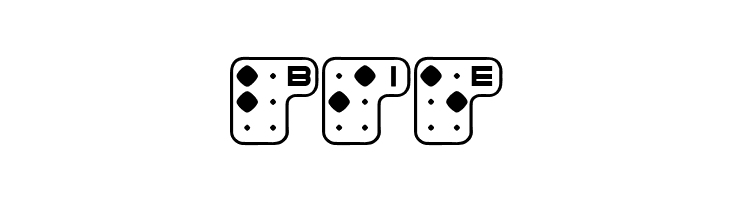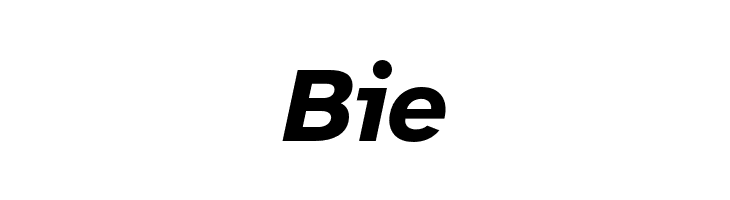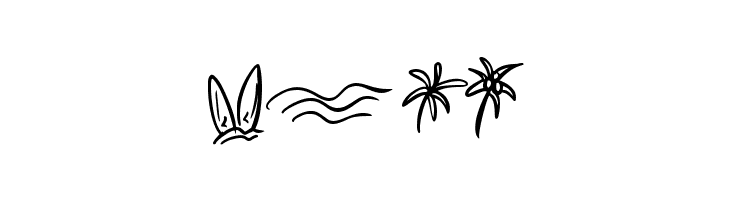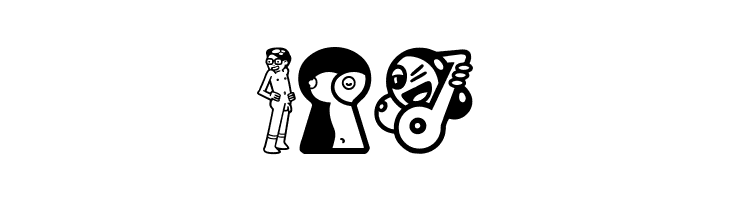
A modern, clean sans-serif font with balanced proportions and excellent readability.
A modern, Braille-inspired font with a playful and innovative design.
A bold, modern sans-serif font focused on clarity and readability.
A highly legible typeface designed for clarity and readability.
A bold, italicized font focused on clarity and readability.
A decorative icon font with feminine and playful motifs.
A playful and whimsical dingbat set capturing the essence of summer with hand-drawn elements.
Explicit, playful dingbat font with erotic and adult-themed illustrations.
Outlined, hand gesture-based font inspired by sign language.
A modern, semi-bold sans-serif font with clean lines and balanced proportions.